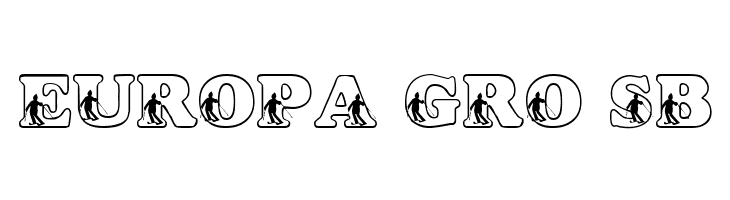
( London's Letters - www.londonsletters.com/ ) A bold, decorative font with skier silhouettes integrated into each character. Download 50 Downloads@WebFont